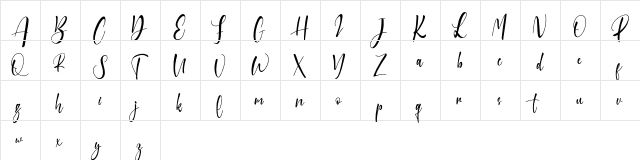
Sanoraya FREE Regular
Design Context for Sanoraya FREE Typeface
Sanoraya FREE is a composed and adaptable typeface that performs quietly and consistently across a wide range of design contexts.